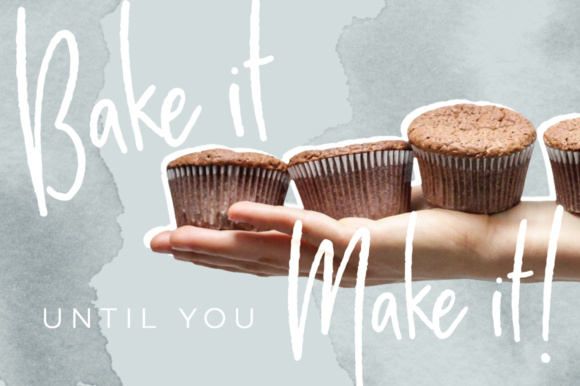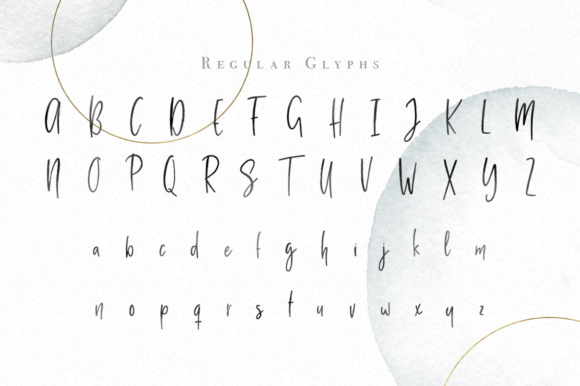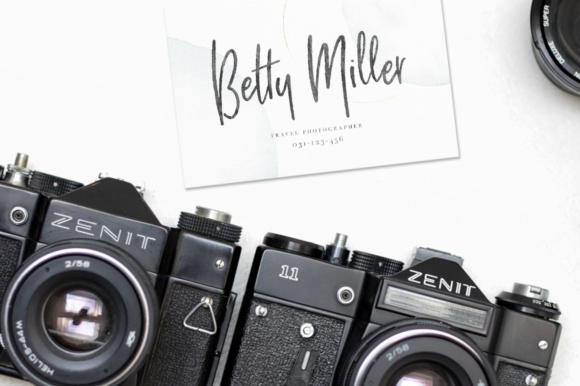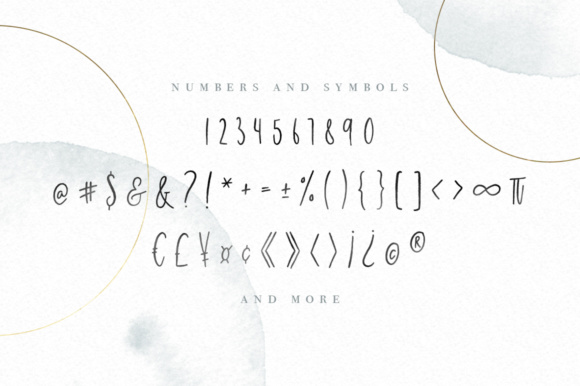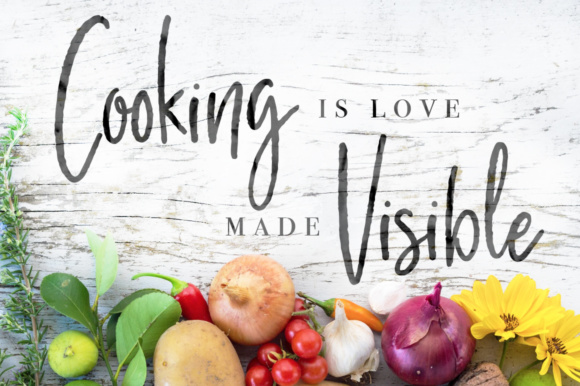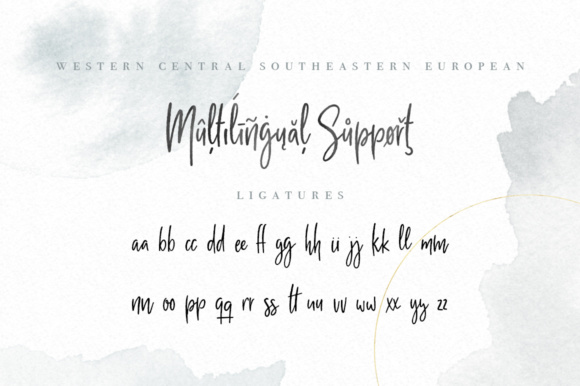
Introduction to Milano Sky Script Font
Imagine you’re brainstorming ideas for your next creative project, and suddenly, the perfect font pops into your head – elegant, sophisticated, and instantly eye-catching. For designers and writers looking to elevate their work, the Milano Sky Script Font is a game-changer. This fancy font is perfect for adding a touch of luxury to your headers, branding, and catchphrases.
As a valuable design resource, the Milano Sky Script Font offers high-quality glyphs for Western European, Central European, and Southeastern European Latin languages. With ligatures added for double lowercase glyphs, this font ensures seamless text flow and a professional look. Whether you’re working on a publishing project or simply want to add a touch of creativity to your social media graphics, the Milano Sky Script Font is an excellent choice.
Key Features of Milano Sky Sky Font
- High-quality, elegant script font perfect for creative projects and design resources.
- Unique, hand-drawn design with a touch of sophistication, making it perfect for luxury brands and high-end creative projects.
Honest Review: Milano Sky Script Font
I recently had the chance to work with the Milano Sky Script Font, and I must say it’s been a game-changer for my creative projects. ✨ With its elegant and sophisticated design, this font is perfect for any high-quality project that requires a touch of sophistication.
- High-quality design: The Milano Sky Script Font boasts a crisp and clean design that’s perfect for any creative project.
While the Milano Sky Script Font excels in many areas, there are a few limitations to be aware of. ⚠️ For one, the font may not be suitable for projects that require a more casual tone. Additionally, the font may not be as versatile as some other fonts on the market.
Overall, I’m thoroughly impressed with the Milano Sky Script Font. It’s a valuable addition to any designer’s toolkit, and I highly recommend it for any high-quality creative project.
When using Milano Sky Script Font, consider the following tips: use it sparingly to avoid overwhelming the design, pair it with a solid background to make it stand out, and experiment with different font sizes and colors to create a unique look.
Milano Sky Script Font is ideal for a variety of design projects, including wedding invitations, branding materials, and social media graphics. Its elegant and sophisticated design makes it perfect for creating a high-end and professional look.